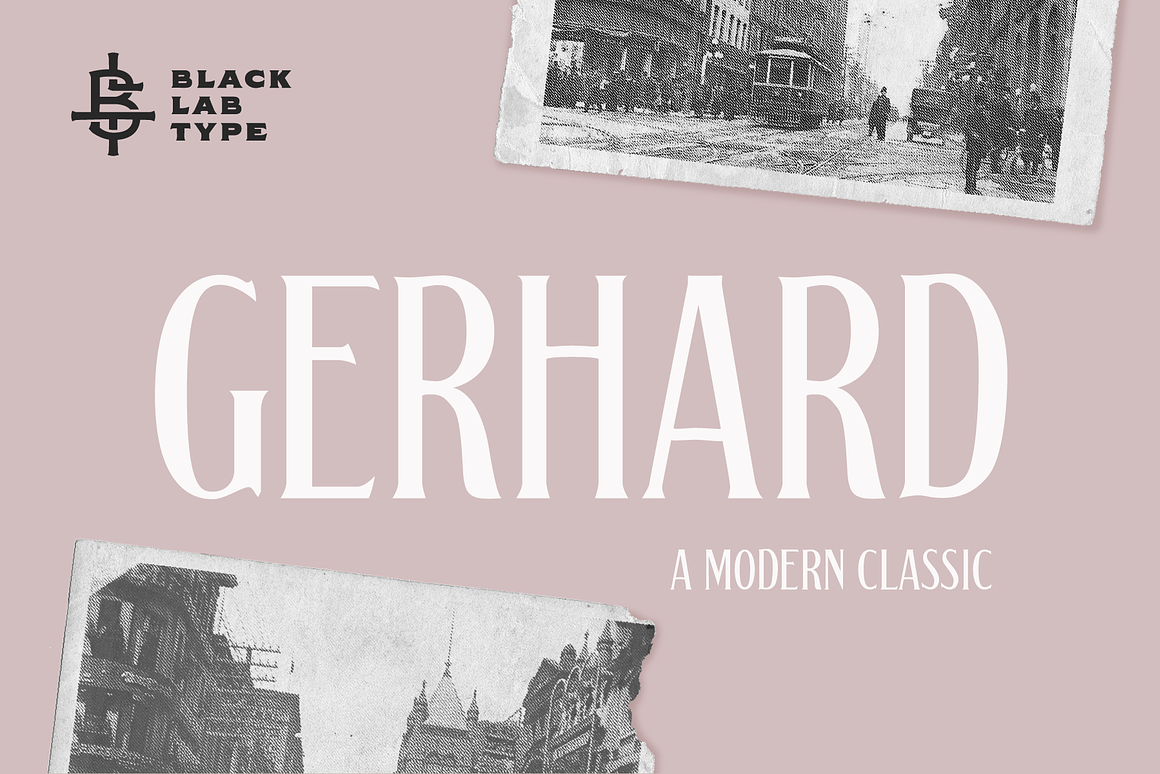
Gerhard- A Modern Classic Font
Gerhard- A Modern Classic Font is perfect for luxury brand identities, premium product packaging, high-end fashion labels, sophisticated editorial design, upscale hospitality branding, and timeless corporate communications. This distinguished typeface excels in museum exhibitions, art gallery materials, prestigious award ceremonies, and any application where enduring elegance and refined sophistication create lasting impressions of quality and heritage.
What makes Gerhard- A Modern Classic Font so exciting is its masterful fusion of classical typographic principles with contemporary design sensibilities. The font features perfectly balanced proportions, refined character details, and harmonious spacing that create an immediate sense of quality and sophistication. Its timeless appeal transcends trends while maintaining the clarity and functionality required for modern communication needs.
Gerhard- A Modern Classic Font comes in an elegant family including Light, Regular, Medium, Bold, and Heavy weights. Each style features complete uppercase and lowercase character sets, classical punctuation, refined numerals, and sophisticated symbols. The font family also includes small caps, stylistic alternates, and premium ligatures that provide designers with comprehensive tools for creating truly distinguished typographic compositions.
This exceptional typeface bridges the gap between historical tradition and contemporary innovation. Gerhard- A Modern Classic Font Free Download offers designers and luxury brands an opportunity to elevate their projects with typography that embodies both heritage and progress. Whether you're developing premium brand identities, creating sophisticated marketing materials, or designing prestigious publications, this font delivers uncompromising quality with timeless distinction.
The font's refined character makes it particularly suitable for luxury retailers, premium service providers, cultural institutions, and established brands with heritage. Its superior readability ensures that Gerhard- A Modern Classic Font performs exceptionally across all applications while maintaining its distinctive sophisticated appeal. The font's ability to convey prestige and timeless quality makes it an invaluable asset for any project requiring typography that represents the perfect synthesis of classical elegance and modern excellence.